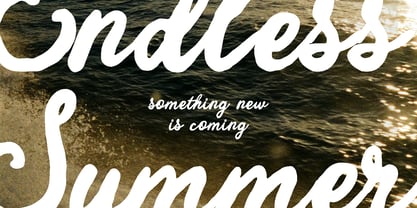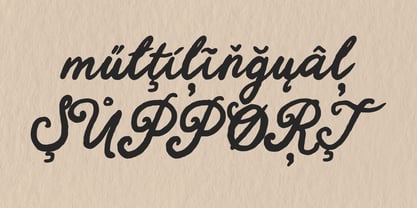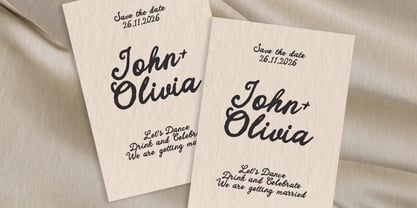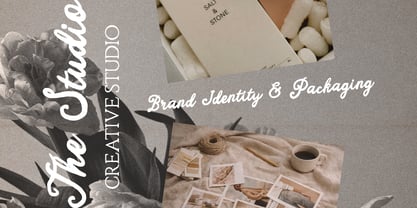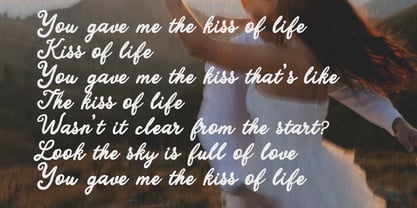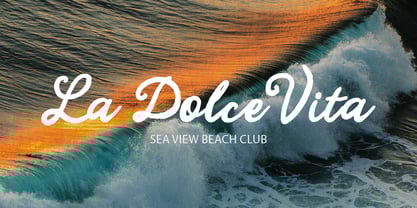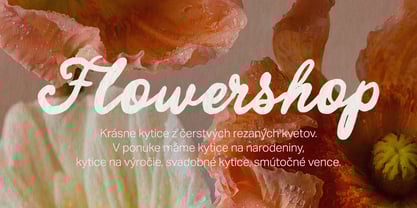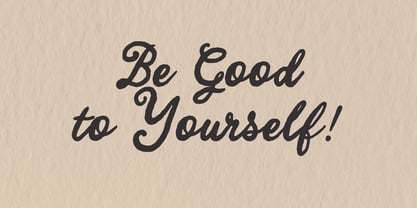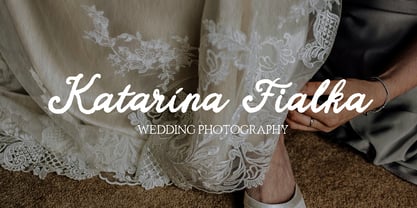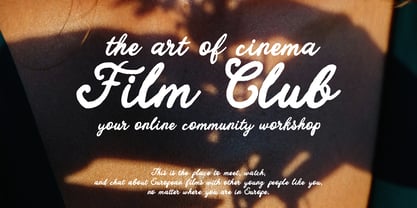
Charming Letters
The Charming Letters Font Family was designed by Daria Cherniackova and published by Bilberry Create. Charming Letters contains 1 styles. More about this family
Charming Letters is a warm, expressive handwritten script designed to feel natural, confident, and easy to use. It combines smooth curves with bold, steady strokes, creating a balanced look that feels personal without becoming messy or overly decorative. The font works beautifully for branding, packaging, logos, social media graphics, invitations, quotes, and lifestyle designs. Its flowing rhythm makes longer words readable while still keeping that handcrafted charm. Charming Letters includes multilingual support, making it suitable for a wide range of Latin-based languages. Every character is carefully crafted to maintain consistency while preserving a genuine handwritten feel. Charming Letters Font Features: Full Set of standard alphabet and punctuation PUA Encoded - no special software needed to access extra characters Multilingual Characters